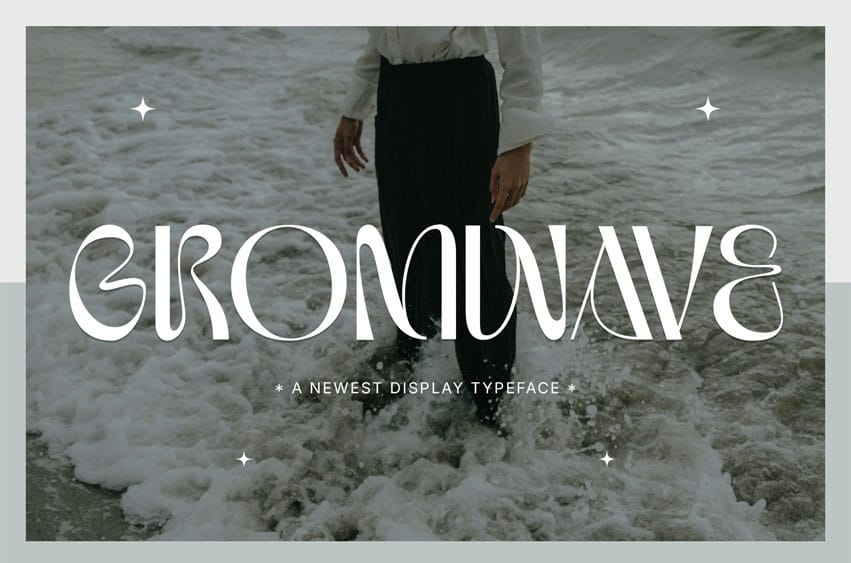
Gromwave Font is a modern luxury font that merges minimalist elegance with a unique, eye-catching style. Its clean lines and sophisticated, wavy letterforms give it a distinctive and refined character. This typeface is perfect for projects that require a touch of luxury and a premium feel, bringing a sense of exclusivity and high-end design.
This font is highly versatile and ideal for a variety of applications, including:
- High-end branding and logo design
- Fashion and lifestyle magazines
- Elegant invitations and stationery
- Beauty and cosmetic product packaging
- Luxury social media content and advertising
- Contemporary web design
Gromwave is designed with a comprehensive set of features to support your creative vision:
- Uppercase & Lowercase: Complete sets of capital and small letters for flexible design use.
- Numbers & Punctuation: A full set of numbers (0-9) and standard punctuation marks.
- Alternates & Ligatures: Add visual interest with special alternate characters and ligatures that enhance the flow and aesthetic of your text.
- Multilingual Support: Gromwave supports multiple Latin-based languages, making it suitable for international projects.
Elevate your designs with the sophisticated and unique style of the Gromwave font.